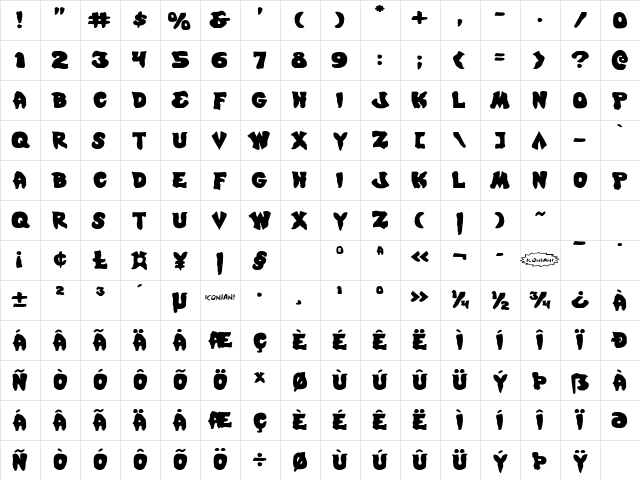
Mystic Singler Expanded
Style: Expanded
Mystic Singler Family
Mystic Singler Expanded
Design Context for Mystic Singler
Mystic Singler is a composed and adaptable typeface that performs quietly and consistently across a wide range of design contexts.